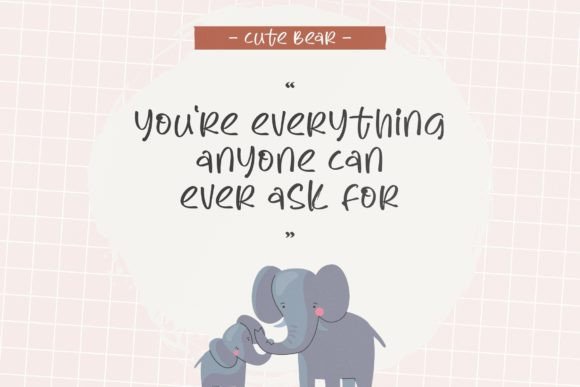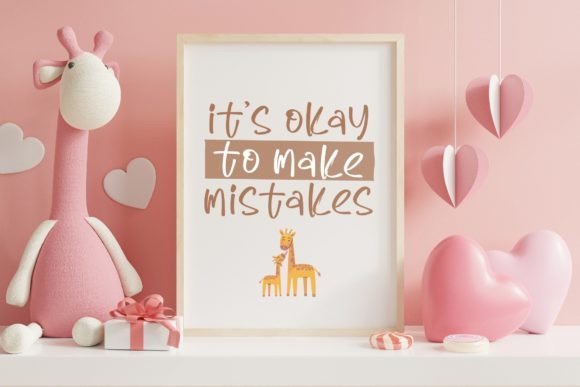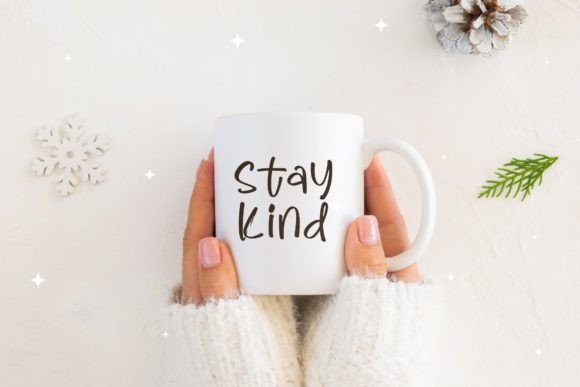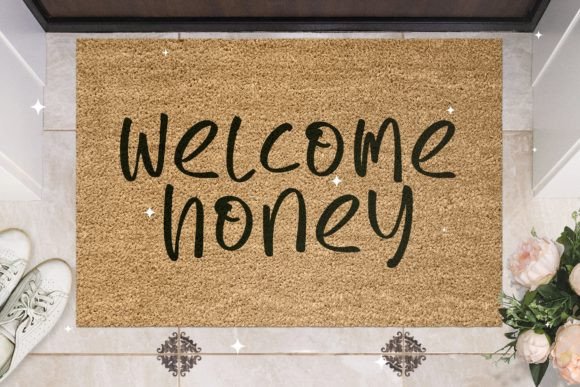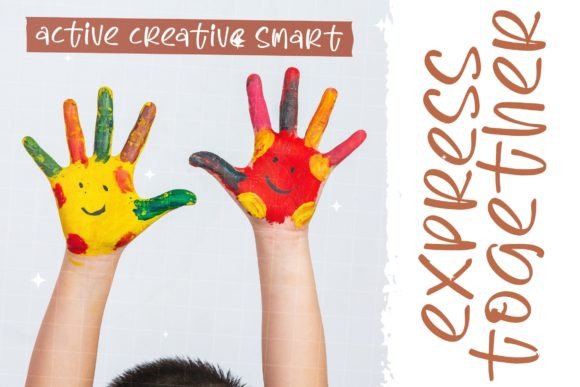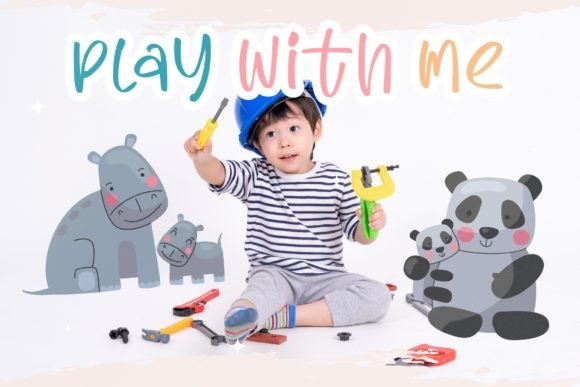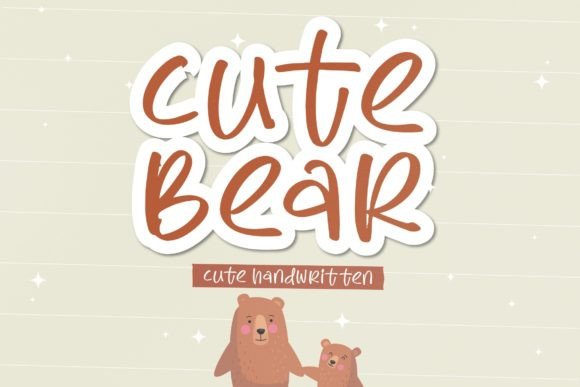
Cute Bear Font: The Perfect Choice for Children’s Activities and School Projects
Are you looking for a font that embodies playfulness and authenticity for your children’s activity or school project? Look no further than the Cute Bear font! This adorable and fun handwritten font is sure to capture the hearts of kids and adults alike.
What is Cute Bear Font?
Cute Bear font is a carefully crafted handwritten font that is designed to bring a touch of playfulness and whimsy to any project. Its unique and charming lettering style makes it perfect for a wide range of applications, from children’s activity sheets and school projects to crafty DIY designs and social media graphics.
Characteristics of Cute Bear Font
So, what makes Cute Bear font so special? Here are just a few of its key characteristics:
- Playful and fun: Cute Bear font is designed to be fun and engaging, making it perfect for projects aimed at kids.
- Handwritten style: The font’s handwritten style gives it a personal and authentic feel that’s hard to replicate with more formal fonts.
- Adorable and charming: The font’s unique lettering style is sure to capture the hearts of kids and adults alike.
- Versatile: Cute Bear font can be used for a wide range of projects, from activity sheets and school projects to crafty DIY designs and social media graphics.
Uses for Cute Bear Font
So, what can you use Cute Bear font for? The possibilities are endless! Here are a few ideas to get you started:
- Children’s activity sheets: Cute Bear font is perfect for creating fun and engaging activity sheets for kids, such as coloring pages, word searches, and more.
- School projects: The font’s playful and authentic style makes it a great choice for school projects, such as posters, presentations, and reports.
- Crafty DIY designs: Cute Bear font can add a touch of whimsy and personality to your crafty DIY designs, such as handmade cards, gift tags, and more.
- Social media graphics: The font’s fun and playful style makes it perfect for creating engaging social media graphics, such as Facebook posts, Instagram stories, and more.
Tips for Using Cute Bear Font
Here are a few tips for getting the most out of Cute Bear font:
- Use it with bright colors: Cute Bear font looks best when paired with bright, bold colors that match its playful and fun style.
- Experiment with different sizes: The font’s unique lettering style works well at a variety of sizes, so don’t be afraid to experiment with different sizes to find the one that works best for your project.
- Pair it with other fonts: Cute Bear font can be paired with other fonts to create a unique and interesting look. Try pairing it with a more formal font for a fun and playful contrast.
In conclusion, Cute Bear font is a fun and playful handwritten font that’s perfect for children’s activities and school projects. Its unique and charming lettering style makes it a great choice for a wide range of applications, from activity sheets and school projects to crafty DIY designs and social media graphics. With its playful and authentic style, Cute Bear font is sure to capture the hearts of kids and adults alike.